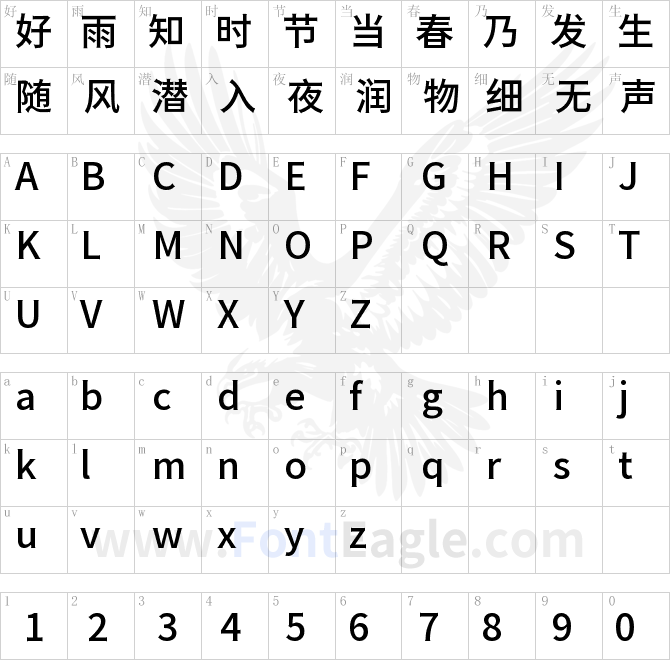
獅尾喇叭黑體SweiBellSansCJKsc-Medium is a great font, widely used in graphic design, single-page menu design, poster design and other fields, and is deeply loved by designers.獅尾喇叭黑體SweiBellSansCJKsc-Medium download.